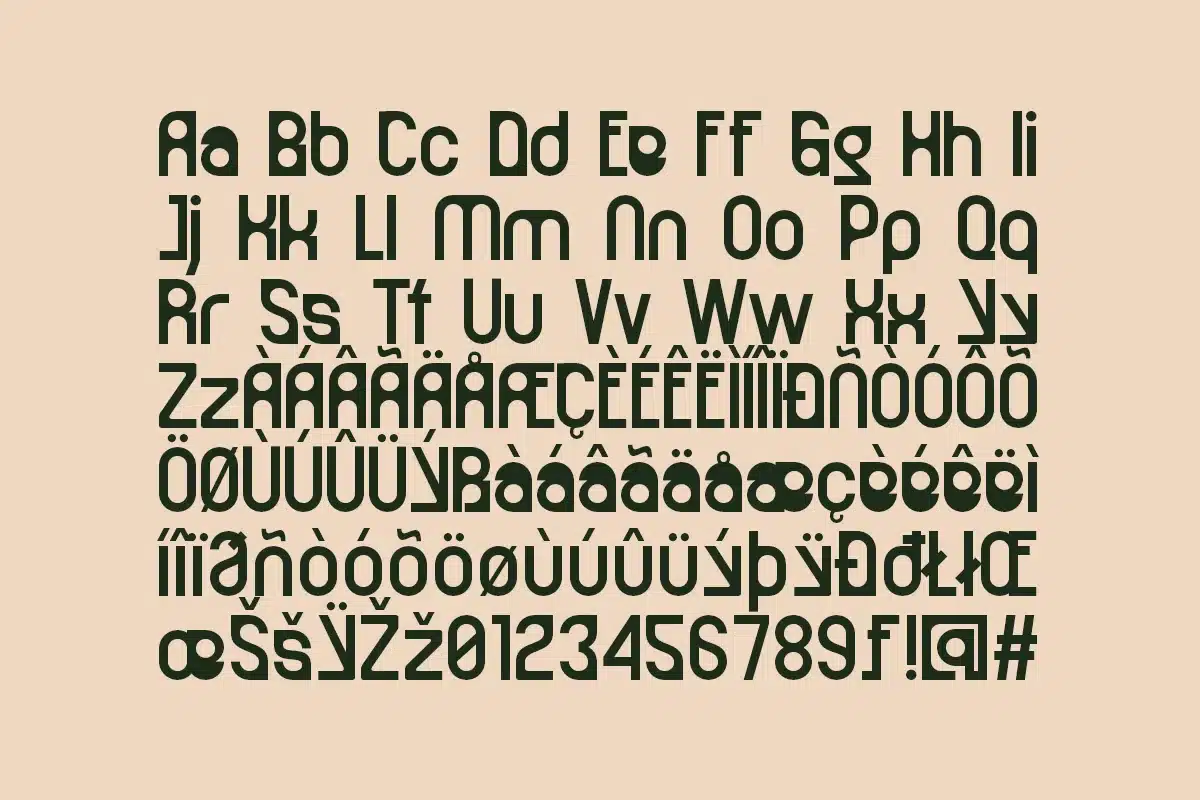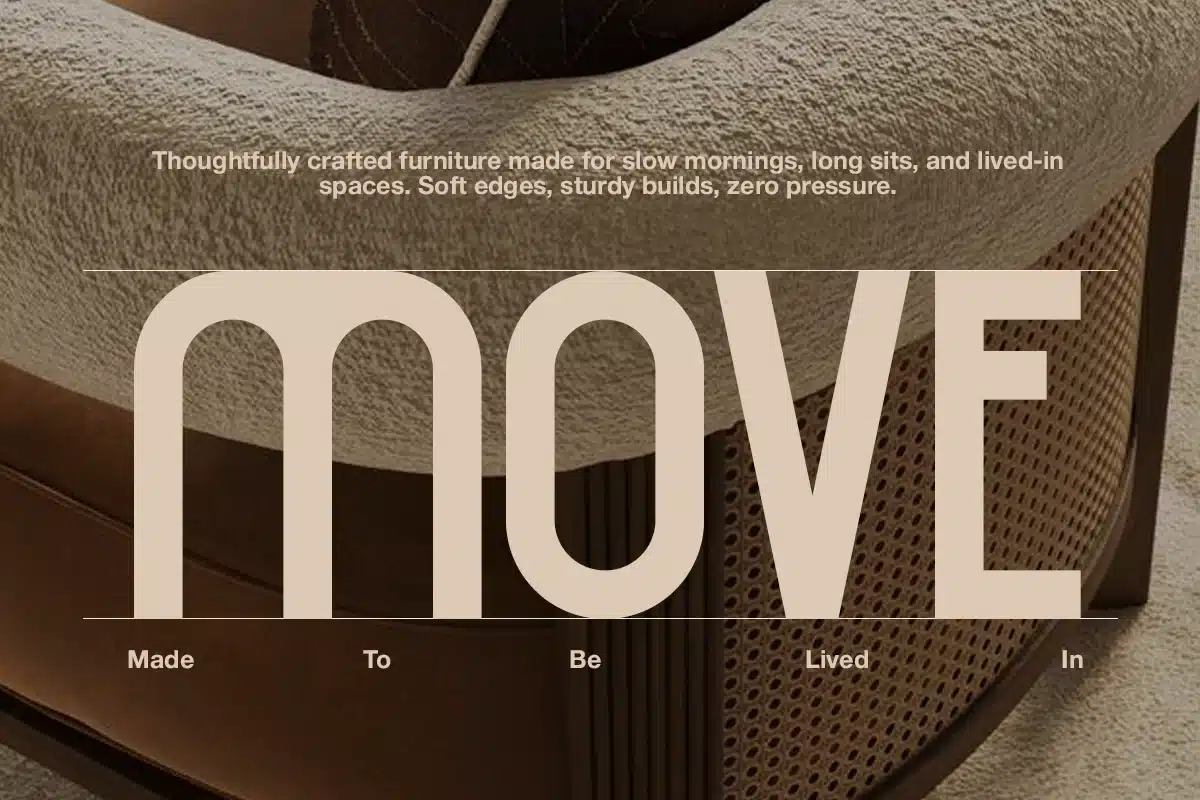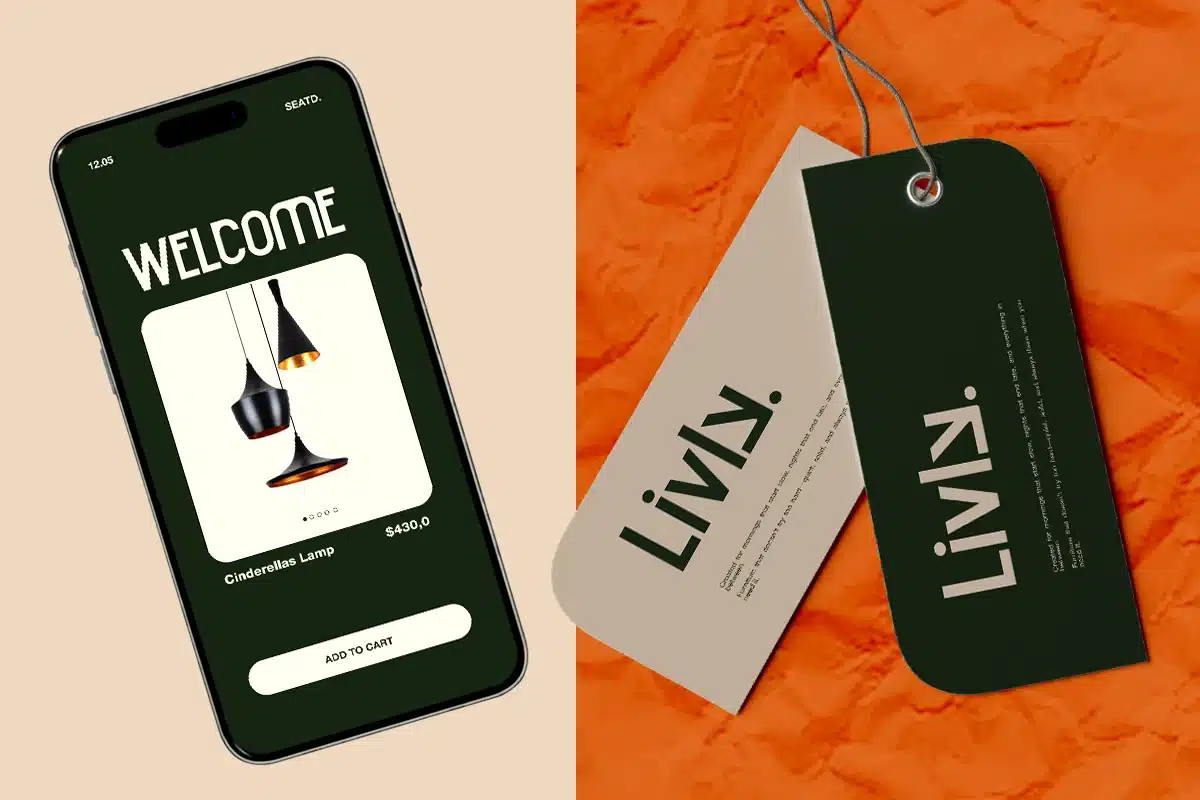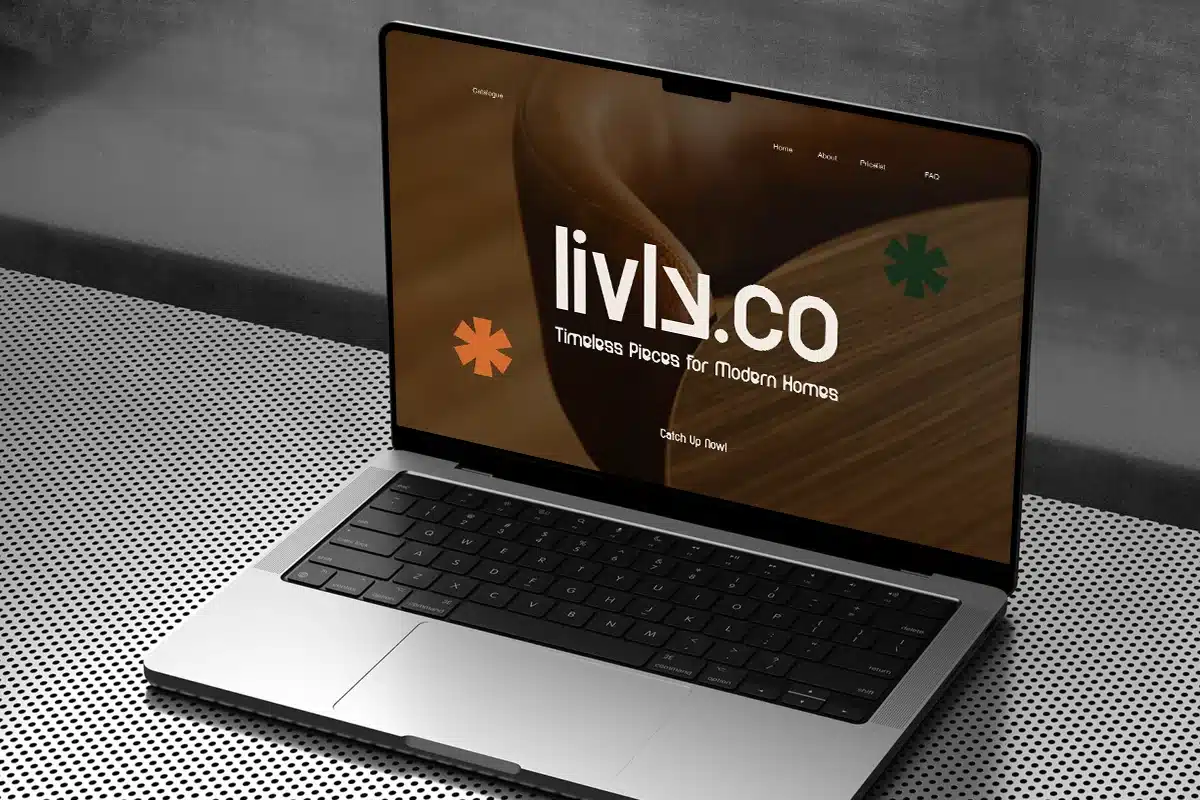
Modern Furniture Branding – Betgal Font
Betgal is a contemporary furniture font designed with a clean, modern, and stylish aesthetic. Its smooth curves and balanced shapes create a warm yet professional look, making it perfect for interior branding and lifestyle-focused designs.
This font comes in 2 styles: Regular & Oblique, and includes uppercase, lowercase, numbers, punctuation, and multilingual support. Ideal for furniture branding, interior design, home decor brands, lifestyle visuals, modern logos, editorial layouts, and elegant promotional materials.
- 2 Style: Regular and Oblique
- Full Character Set: Uppercase, lowercase, numbers, symbols, and punctuation